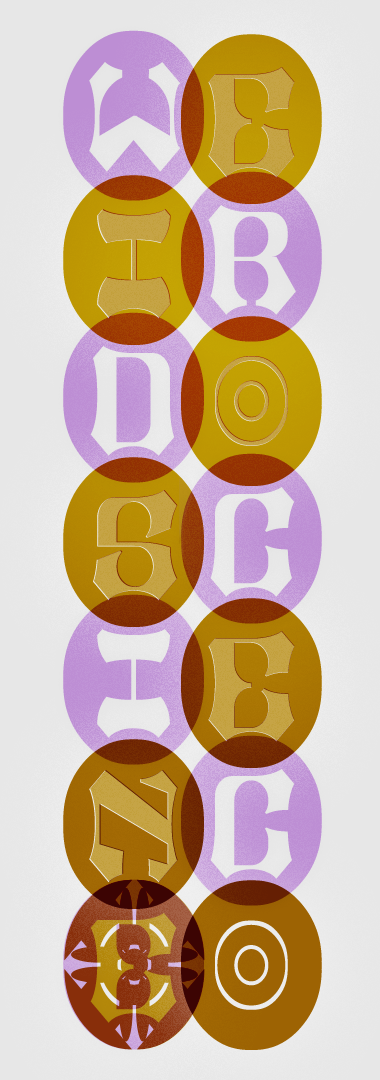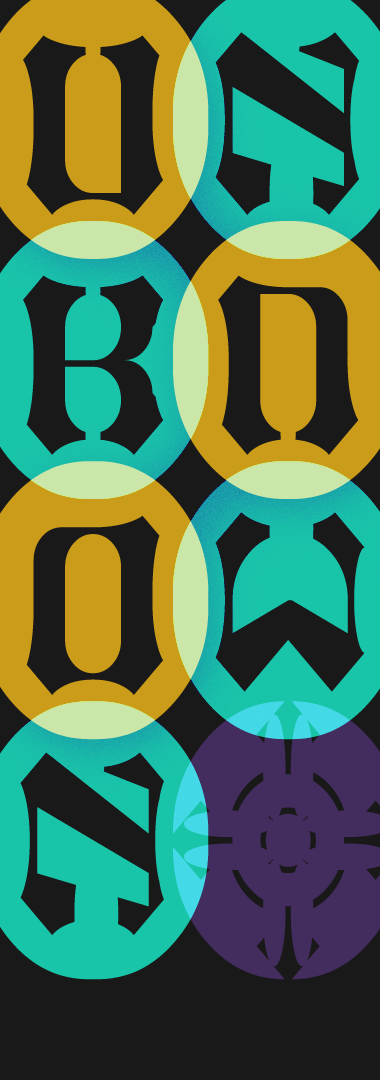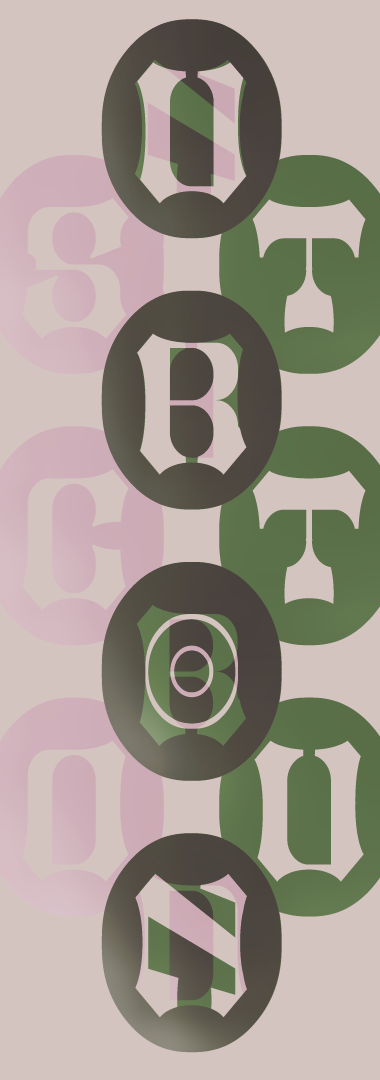
Marvelous!!!
Fs Classic. Genius technique. Awesome glyphs (especially asterisk).
Another next level font from you. It took some time to get my mind around this, but when I did I was even more impressed. Excellent technique!
You're trying each time not only to try a new technique, but to Reinvent the Fontstructor itself ! Sometimes it's not favouriting the final style, but not there, we can feel your personal "roundish" approach of blackletter, which makes understand why you so like Intaglio work.
Maybe it could appear pretentious to my numerous detractors, but to build my impossible shapes while never using Bézier, i also defy everyday the Fontstrusctor and find ways to pervert it to reach my purpose, even if it is in a much less "controlled" and programmatic way than yours. But the shapes and styles i develop could simply not exist with a programmatic construction. There IS a controlling phase but which came AFTER a 1st phase where all means and even the more "criminal" regarding typographic classic standards are used and tried out to push the esthetic to unexpectable territories, and then, and then only comes the HARD phase which demands so many hours, months, even years of reworking, to reach a nirvanic state where these impossible styles and shapes "miraculously" function in a quasi "regular" usable way, even if for this you have to forget for a moment 70 years or so of Helvetica dictatorship.
Strangely, contrarily to you, it's my low, very basic comprehension of the Fontstructor which makes me often find unexpected ways of using FS and be creative also in my way of using the Fontstructor to create my little coherent worlds.
(To express my low FS technical level, i still do not understand how you and some others can make composites in another way that the classic simple method using only original fontstuctor's standard bricks in a 2x1 or 2x2 cases grid without the possibility to use any blank, which makes 90% of the composite you're producing impossible... Hopefully some of the highest composite experts (You, Intaglio, DJ Nippa, Nazlfrag, Tomoalien, etc.) offered some clonable works to allow people with my technical level to use some of these incredible miniature composites anyaway. By stacking them, and sometimes even "per se" i could generally reach the very shapes i needed! Be thanked a million times for it.
Good to see another font by you and a very impressive one at that, turning everything inside out and sculpting some beautifully unique and seemingly unfontstructable glyphs out of negative space. I have cloned this to look at the glyphs and admire your process and inventive use of stacking. I suppose font design software could lift them out of their circular shapes to create a positive version should you want to.
It's impossible ... it's never done in FS ... Ahhhhhh! ... it's will.i.ૐ at work again.
I bow (deeply) to your ever inventive and always challenging talents. 10/10+++++++++++++++
Pushing the bounds of creativity, as always.
Woah. This is another instance of "Hey guys. Let's see just how far this FontStruct thingy will go! And let's post the results on the internet!". But the style is... well... weird for me. 9/10.
This is just ridiculous.
...In the best possible way.
This is utterly amazing. A beautiful design. :)
@chr.s Like ridiculously amazing?
To have the will.i.ૐ mind.
Ahhhhhhh!
Ingenious :)
I love your work
you carete fancy glyph with simple design.
another stong font
It always intrigues me how you continue to note features that we do not have, then amass your creations as if we have always had them. Fractional filters and scaling abound, with meticulously composited bricks that I've never seen before. Veritably educational in form and function. How do you keep track of all of those bricks and maintain your sanity?
SAY WHAA?!